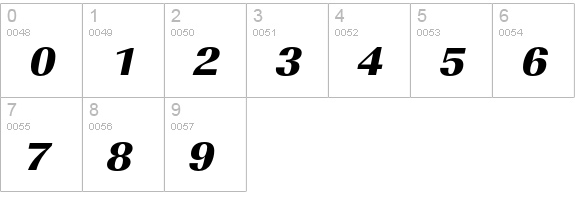
URWImperialTOTUltBolEW Oblique Font Details
URWImperialTOTUltBolEW Oblique is a distinctive, italic variant in the URWImperialTOTUltBolEW typeface family \xE2\x80\x94 well suited to design and typography projects.
URWImperialTOTUltBolEW Oblique is a stunning and versatile font that exudes elegance and sophistication. Its bold and dynamic design makes it perfect for a wide range of creative projects, from branding to editorial design. The unique oblique style adds a modern twist to the classic serif font, making it stand out from the crowd. What's even better is that URWImperialTOTUltBolEW Oblique is available for free download at FontsMarket.com. This means you can easily access this high-quality font and use it in your projects without any cost. Whether you're a designer, a business owner, or a content creator, this font is sure to elevate your work and leave a lasting impression. Don't miss out on this amazing opportunity to enhance your designs with URWImperialTOTUltBolEW Oblique. Download it now and unlock its full potential!